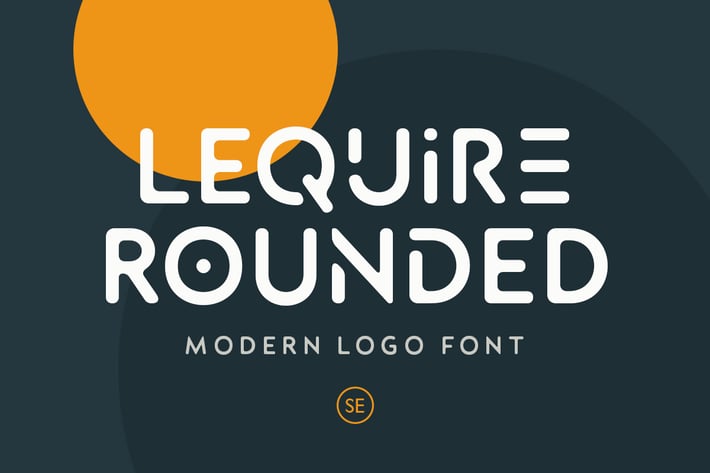
Lequire Rounded - Modern Logo Font
Lequire Rounded is a rounded sans based font with unique lowercase that will make your design looks hi-tech and modern. You can use this font for any purpose, especially to make logotype. You can mix and match the uppercase and lowercase to make your logo more readable.